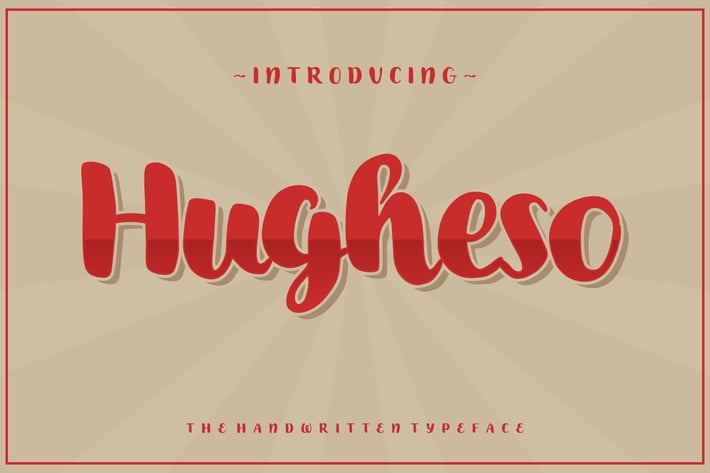
Hugheso Font
Introducing Hugheso , a cool and elegant Script and Handwritten font. Elegant font feel. This font gives you a beautiful and modern atmosphere. suitable for t-shirts, posters, book covers, cards, merchandise, etc.
Feature
+ Uppercase
+ Lowercase
+ Punctuation
+ Numbe